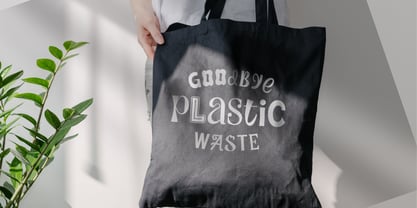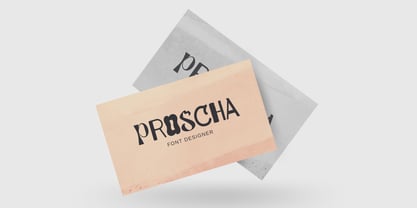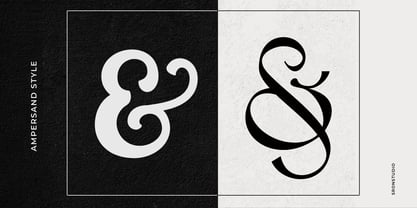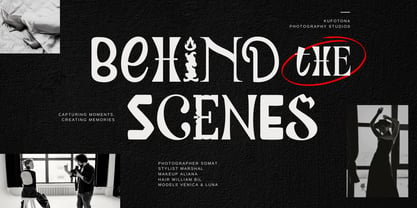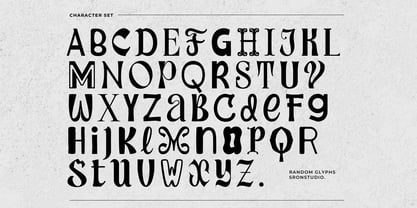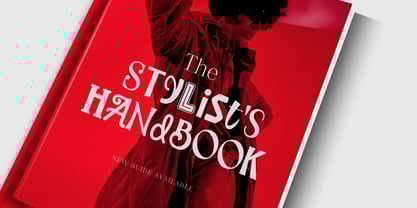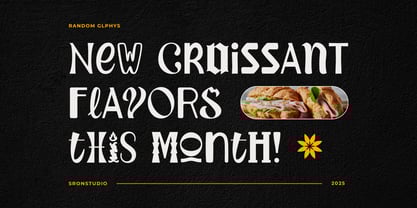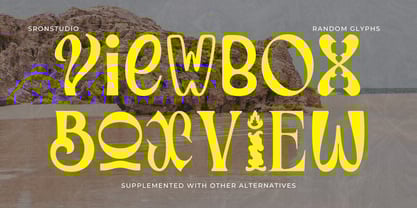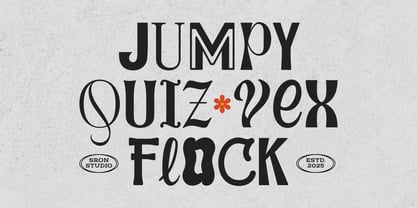
Random Glyphs
by Sronstudio
The Random Glyphs Font Family was designed by Muhamad Yusron Billah and published by Sronstudio. Random Glyphs contains 1 styles. More about this family
Random Glyphs is a quirky and creative mixed display font that brings an eclectic and playful vibe to your designs. With its unique and unpredictable character shapes, it’s perfect for posters, branding, album covers, or any project that needs a bold and unconventional touch. Make your work stand out with Random Glyphs!
- Alternates Letter
- Numeral & Punctuation
- Multilingual support